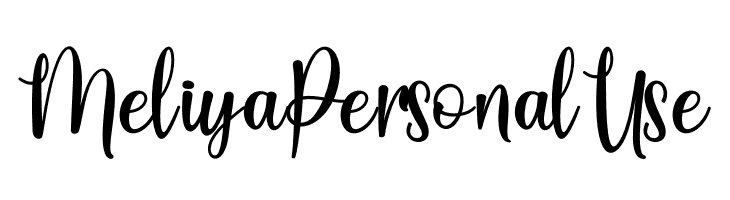
A playful, handwritten font with elegant curves and bold, expressive characters.
A lively and elegant script font with flowing, high-contrast letterforms.
A bold, expressive script font with elegant flourishes and high contrast strokes.
An elegant script font with flowing, cursive style and intricate loops.
A bold, playful script font with a handwritten style.
A bold, flowing script font with lively, expressive characters.
A playful handwritten font with smooth, flowing strokes and a whimsical style.
A modern, handwritten script font with bold, expressive strokes.
A bold, fluid script font with dynamic curves and expressive flourishes.